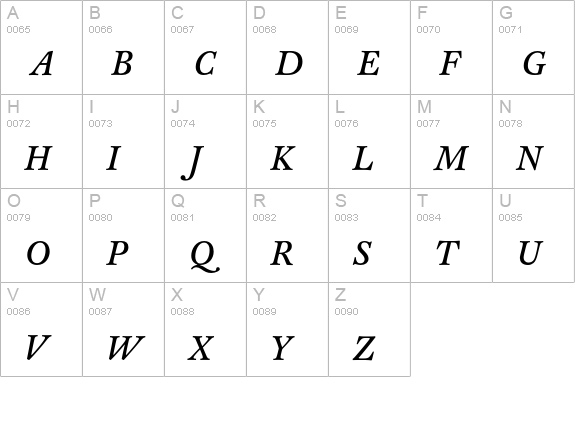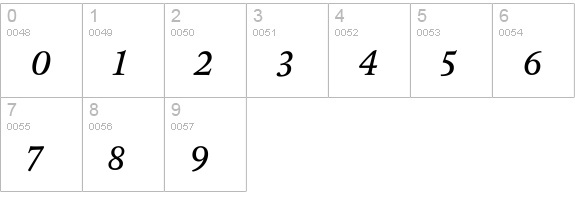
CliffordNine-ItalicAltLF font is a stylish and elegant typeface that exudes sophistication and charm. With its sleek and modern design, this font is perfect for adding a touch of class to any project. The italicized letters give a sense of movement and dynamism, making them perfect for adding emphasis to your text. Best of all, CliffordNine-ItalicAltLF font is completely free to download at FontsMarket.com. Whether you're working on a personal project or a professional one, this font is a versatile and stylish choice that will elevate your design to the next level. Download CliffordNine-ItalicAltLF today and add a touch of elegance to your work.